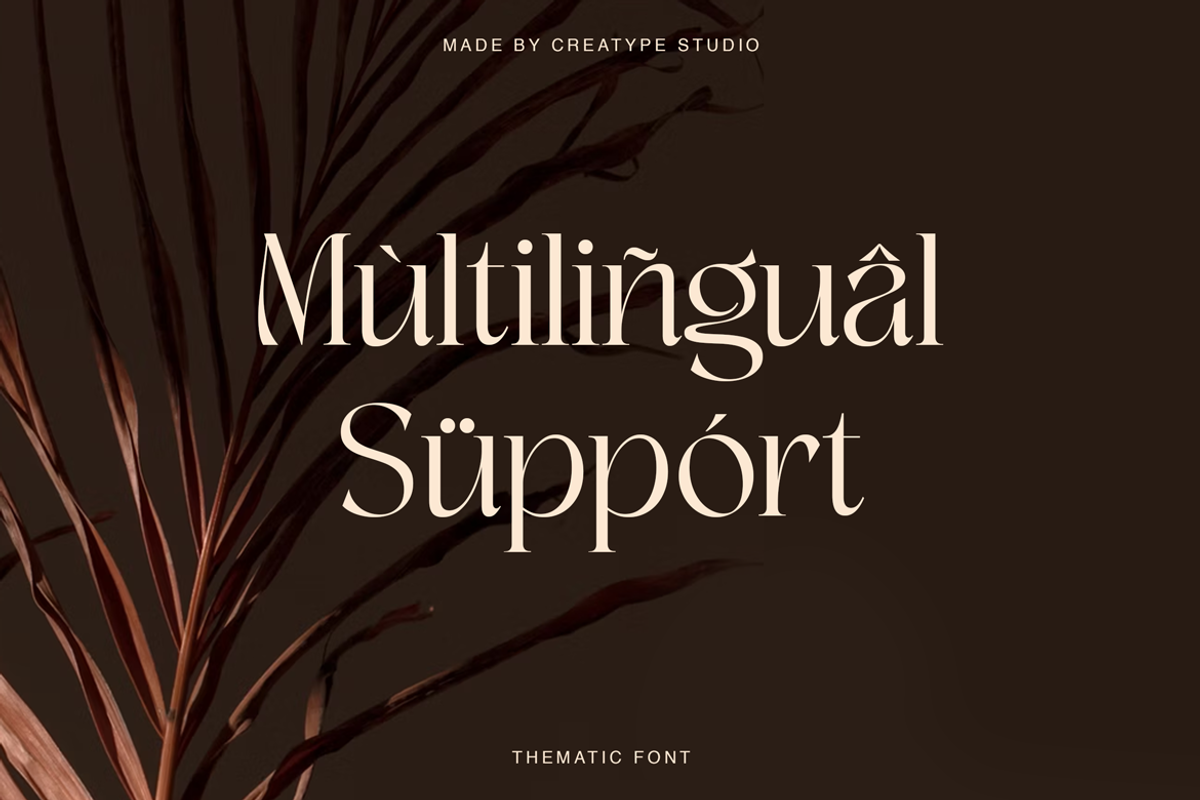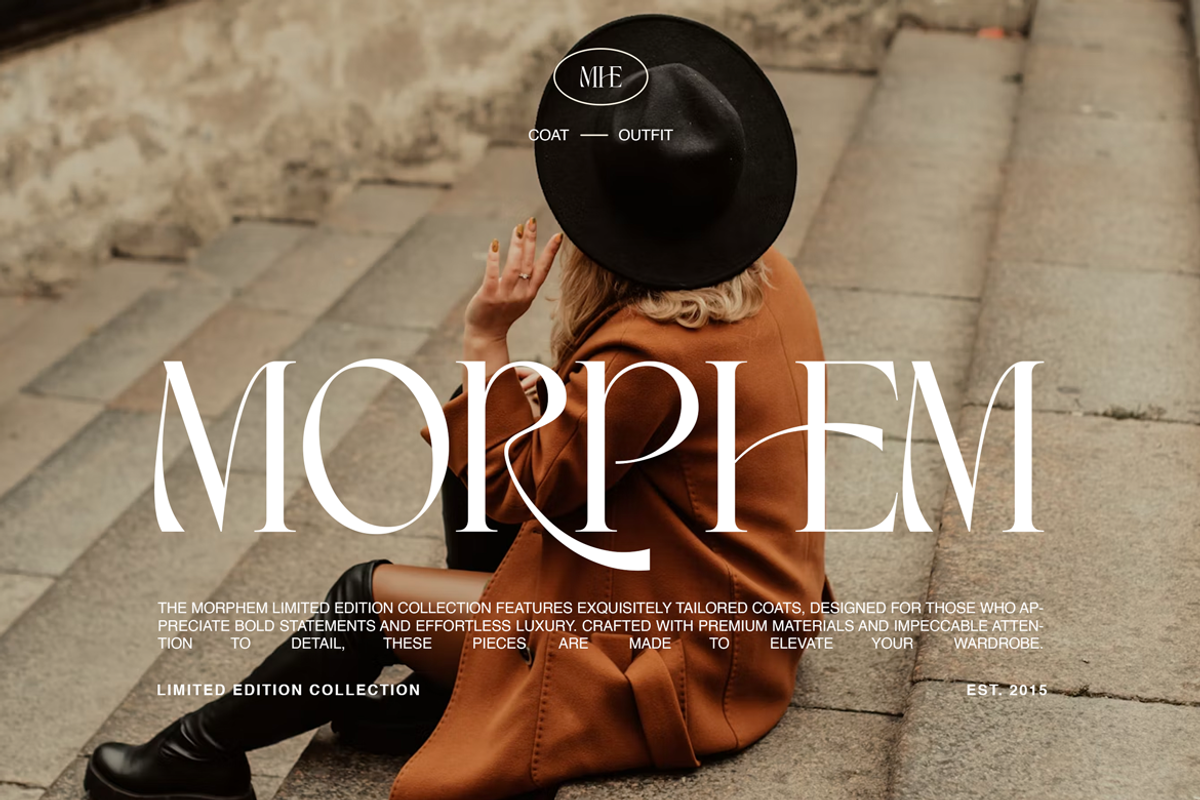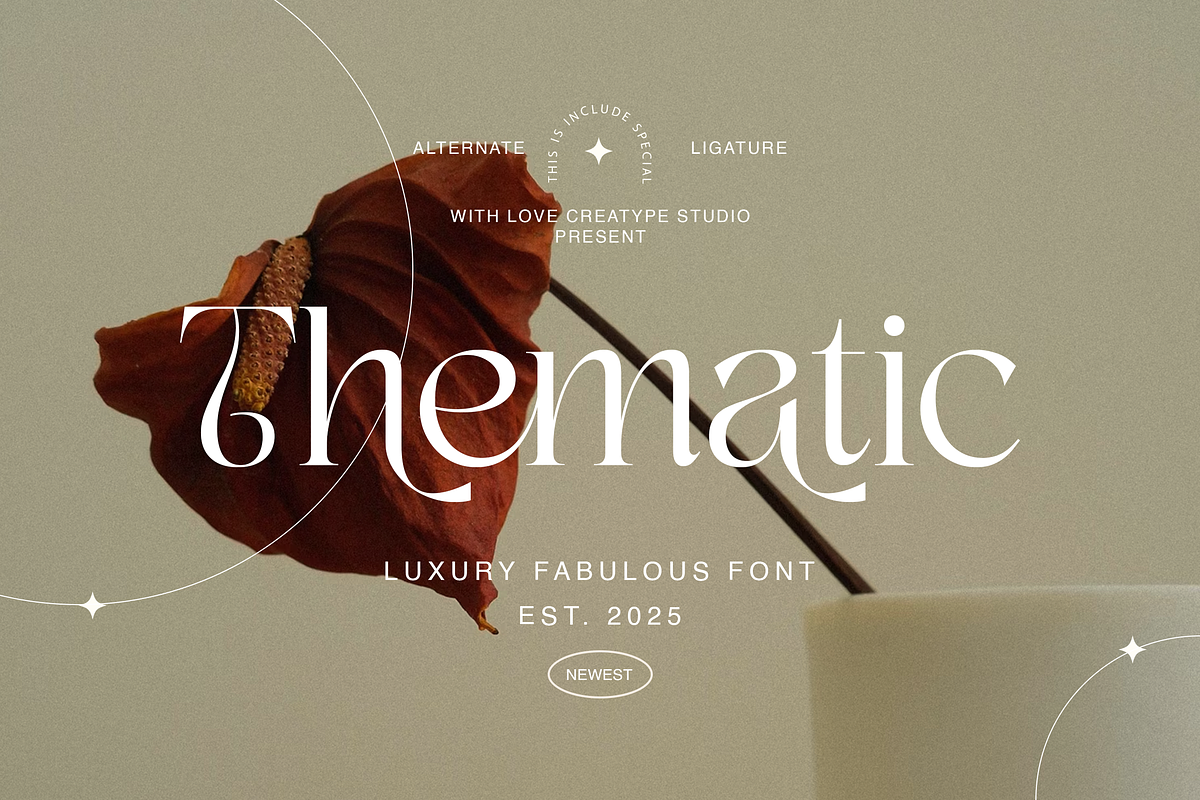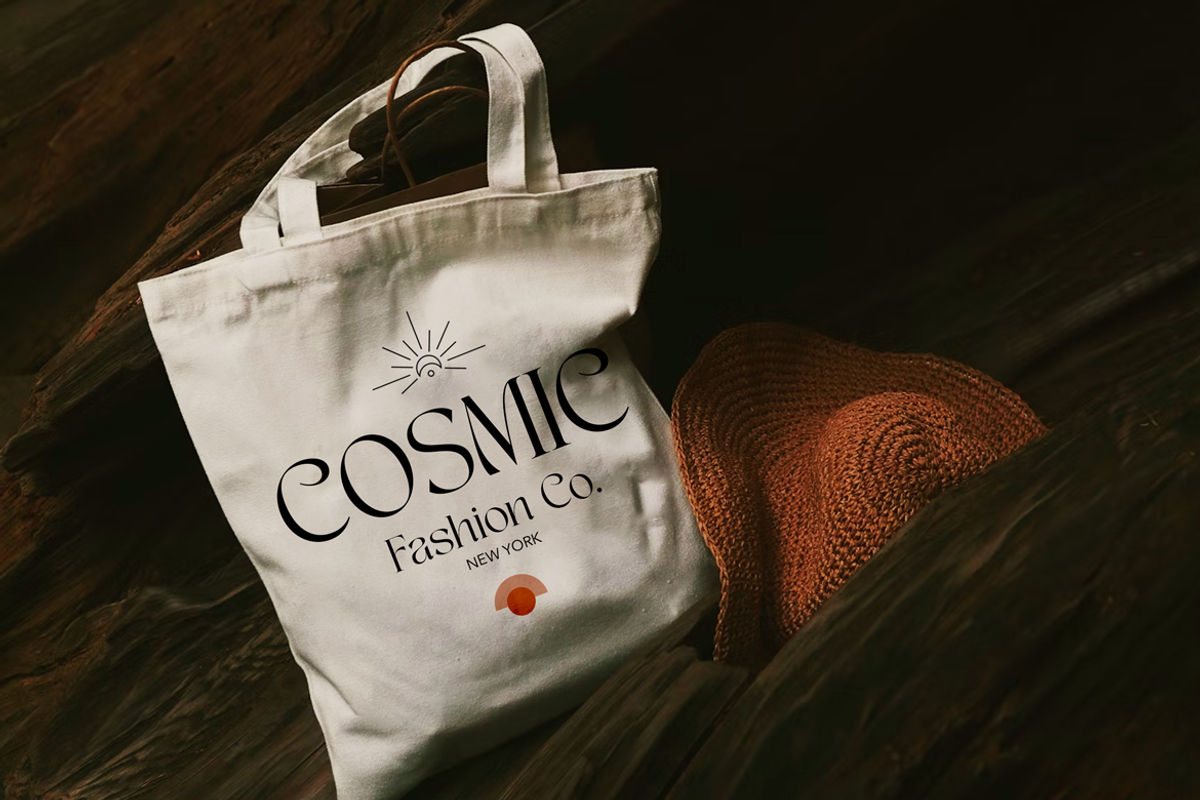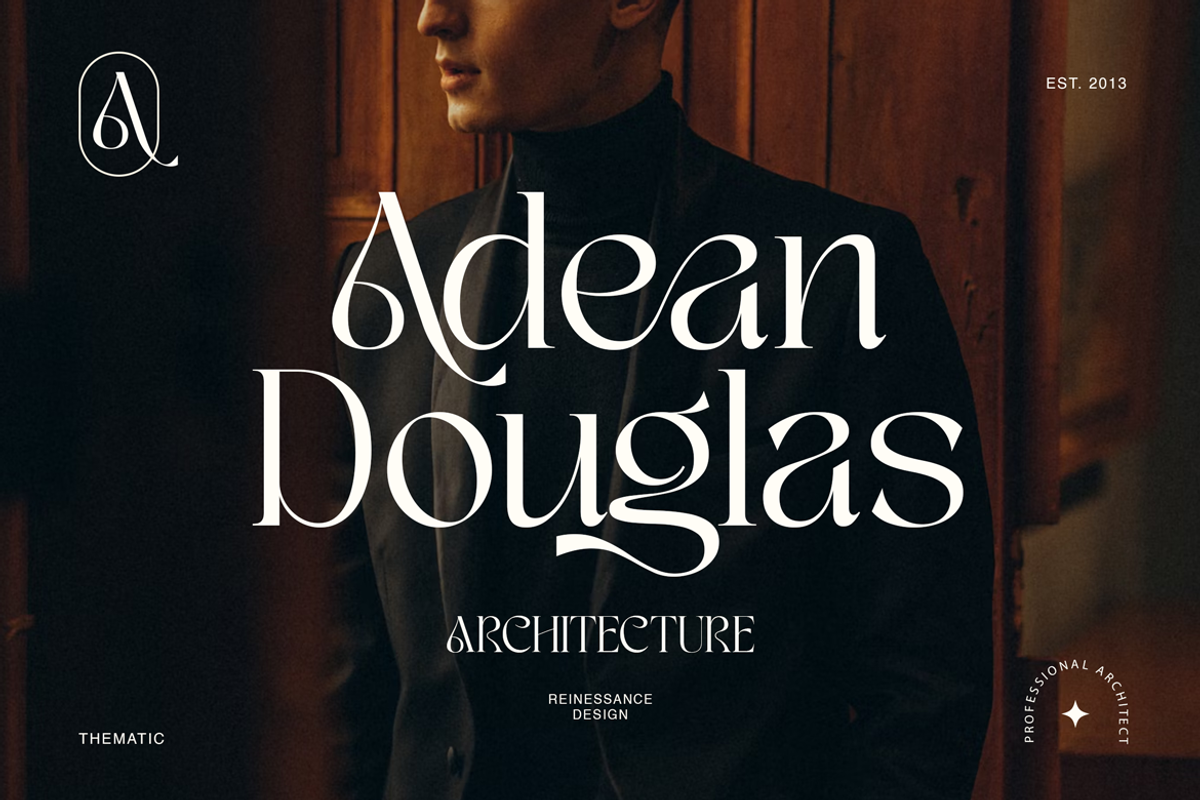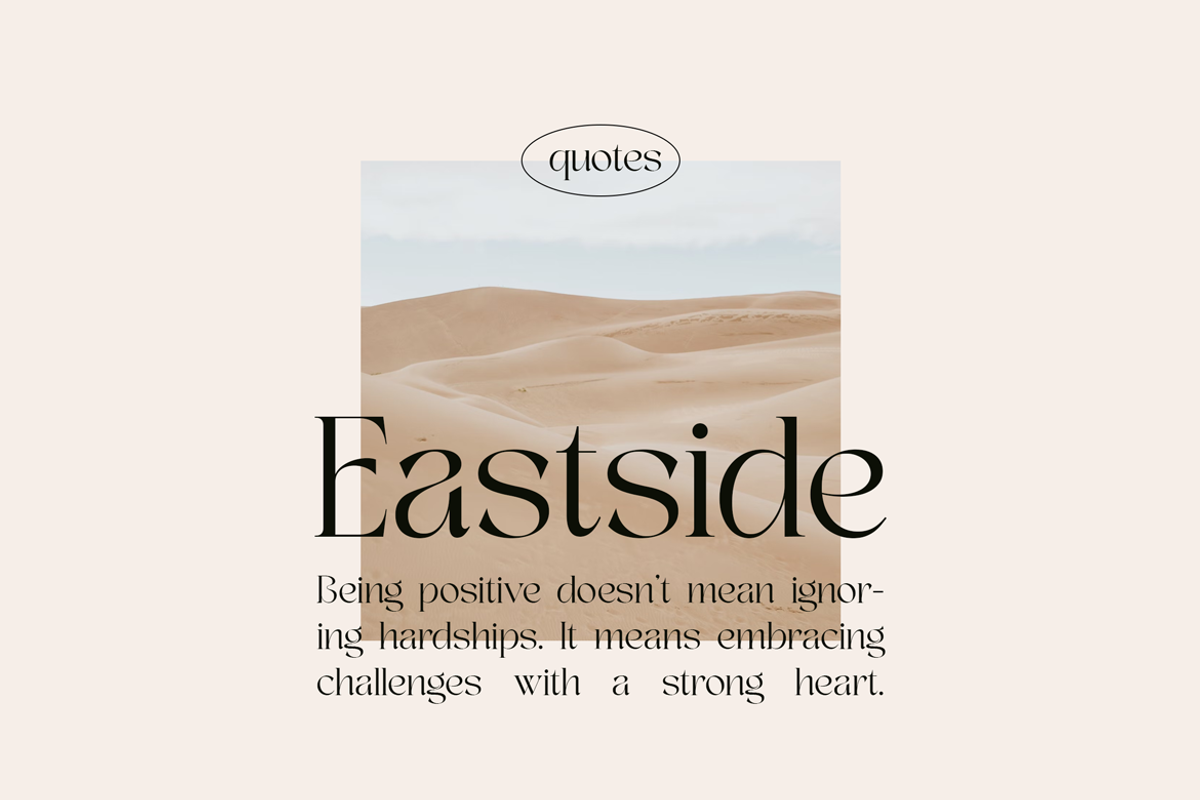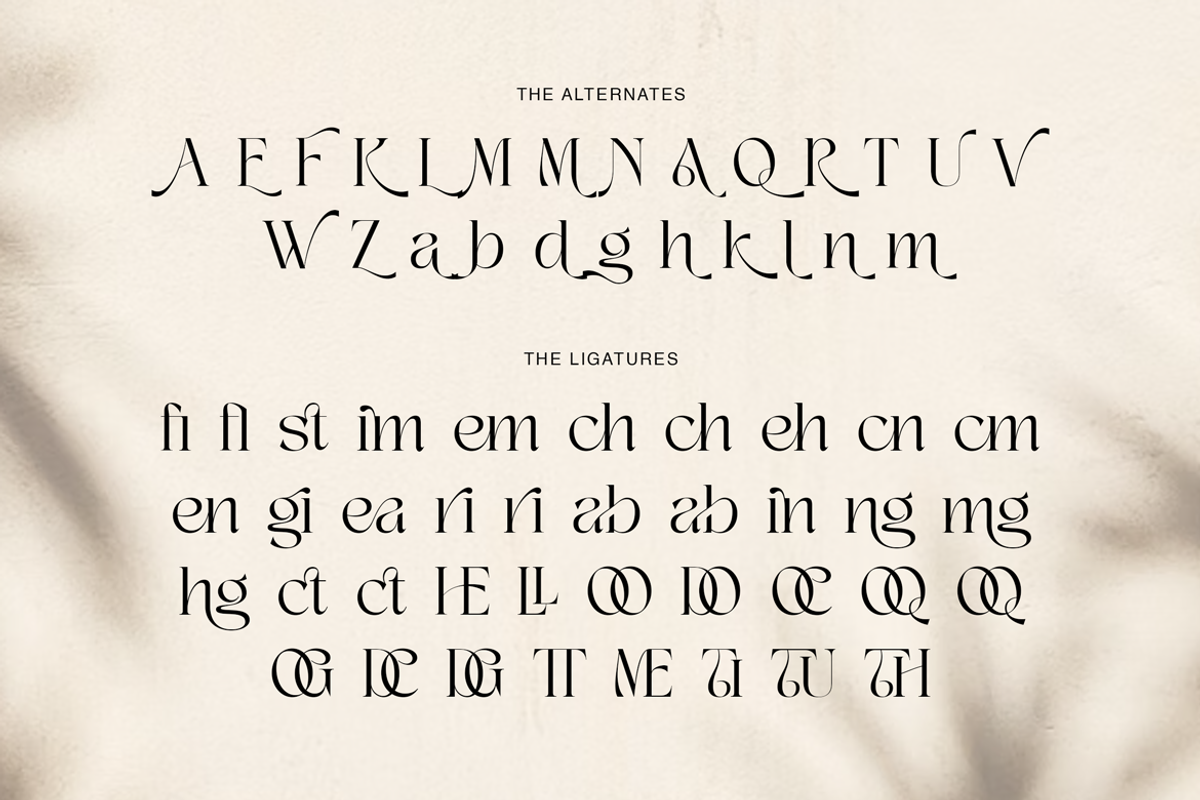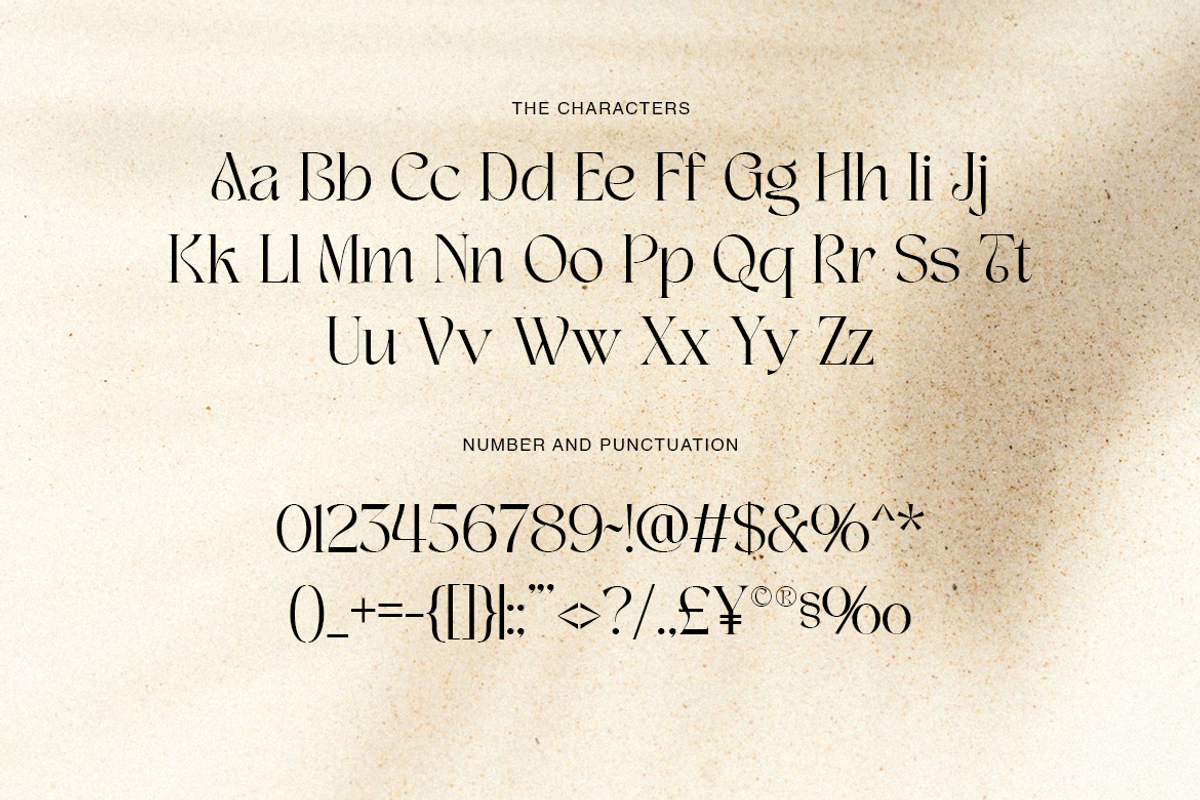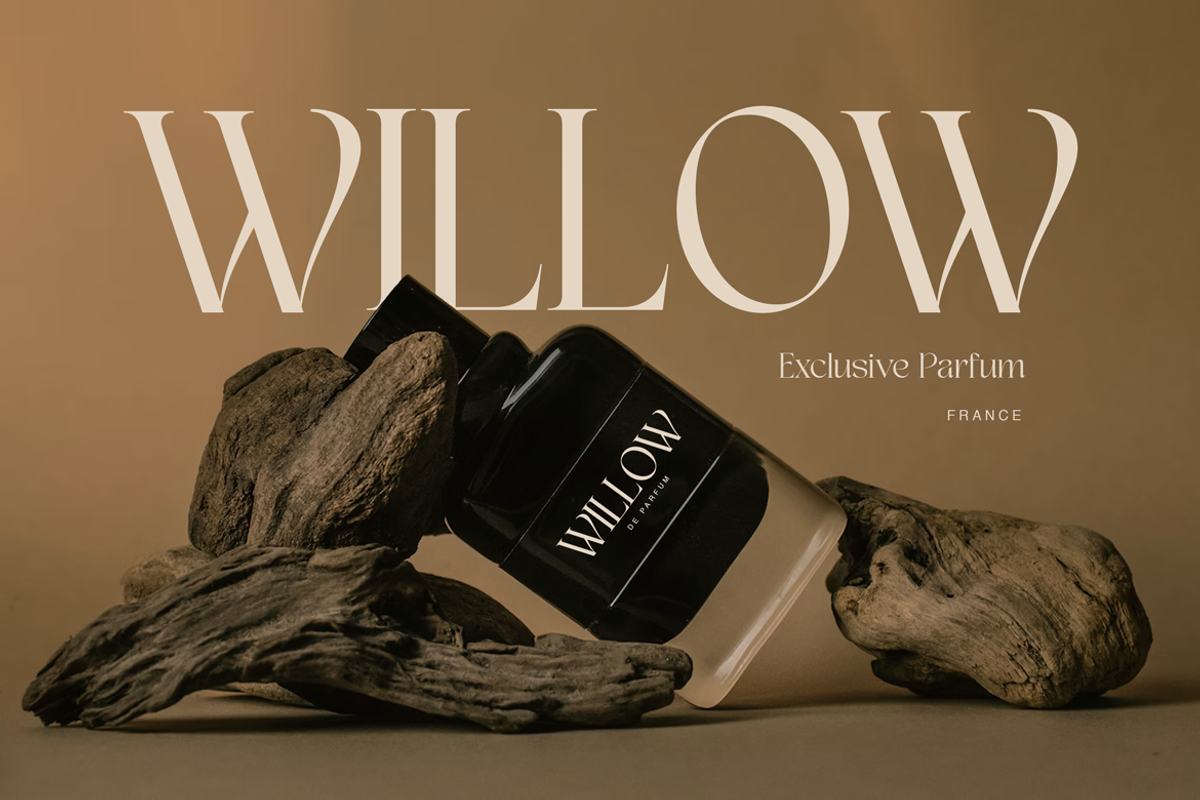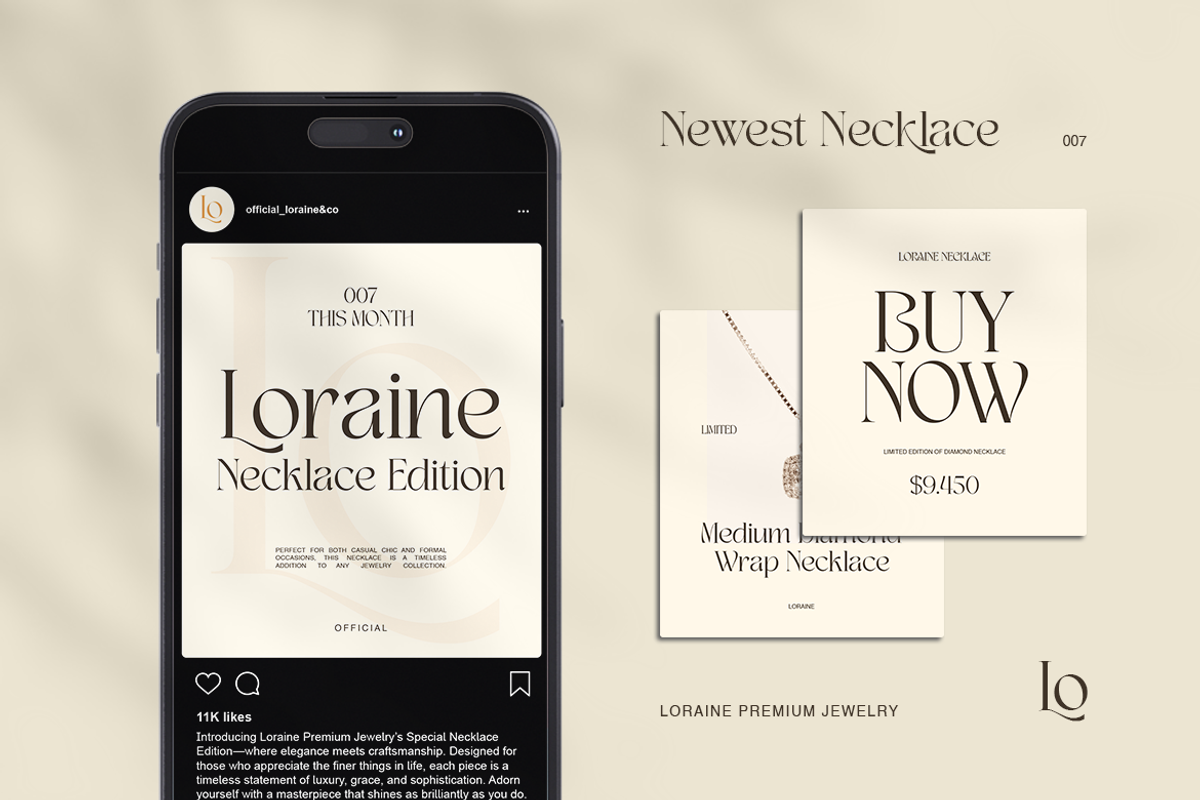
Thematic Luxury Display Serif
Thematic is a high-contrast display serif that feels like a whispered secret—modern, graceful, and a little daring. Curved apertures, sculpted serifs, and elegant ball terminals create dramatic rhythm, while tasteful alternates and ligatures add that couture “finish” you only see on premium brands.
Use Thematic when you want your words to look like a brand: fragrance boxes, skincare labels, jewelry & fashion logos, boutique café menus, wedding suites, magazine covers, hero banners, and social promos. It thrives in large sizes, pairs beautifully with minimalist sans-serifs, and speaks to creative directors, brand designers, photographers, wedding stylists, indie founders, and luxury retailers who want timeless presence with a fresh twist.
Make headlines sing, craft logotypes with personality, and give packaging that subtle cinematic glow, Thematic turns simple text into a mood.
- Ligature & Alternate